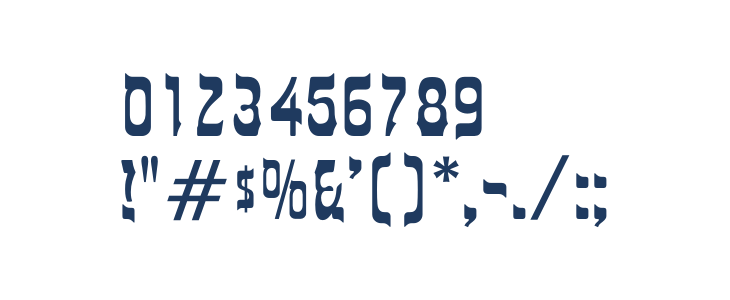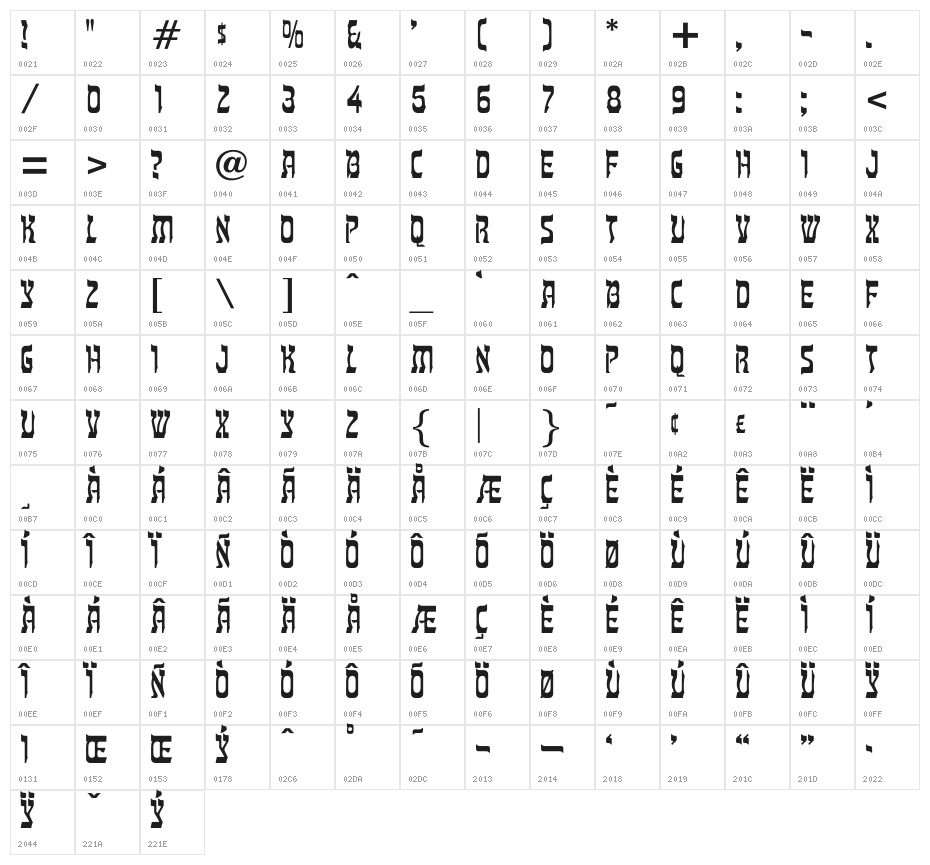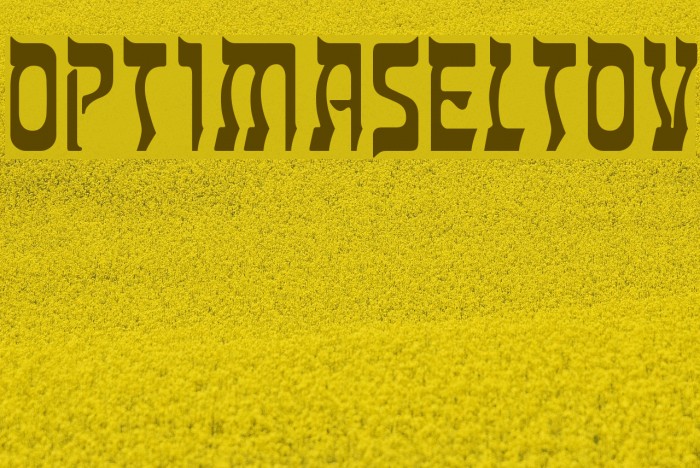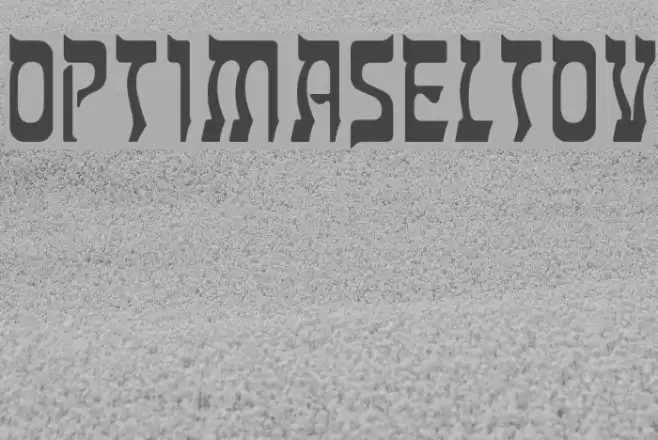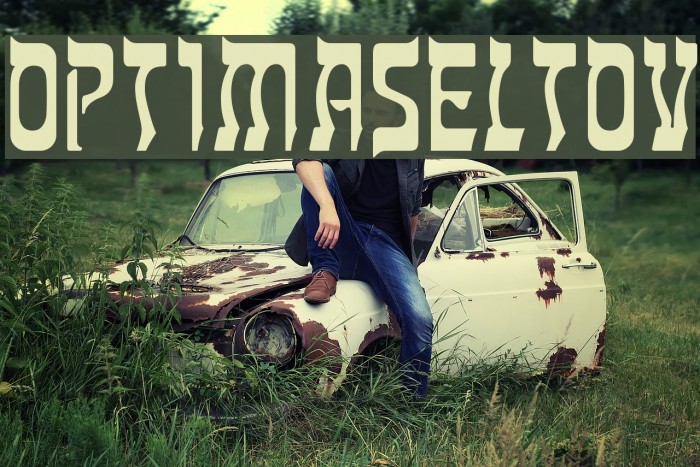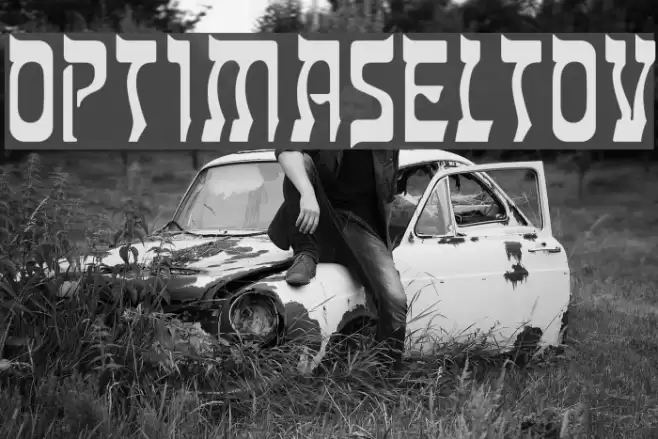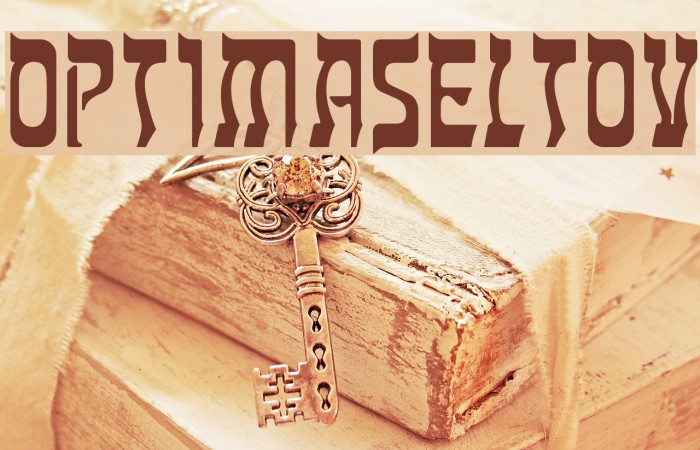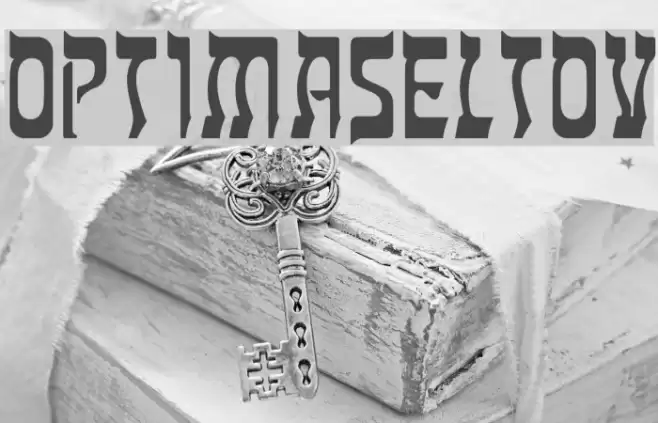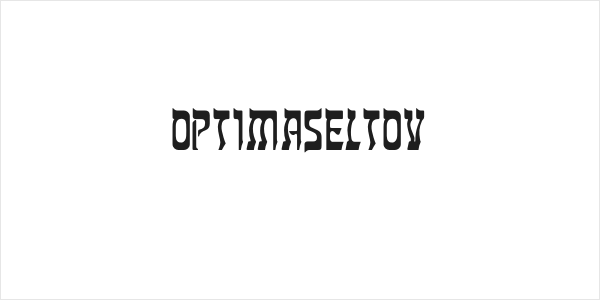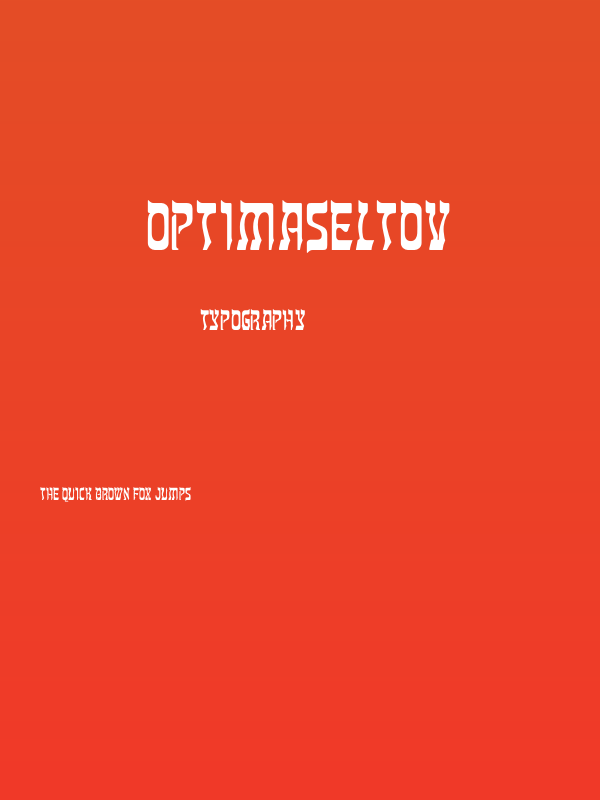
OPTIMaseltov Font
OPTIMaseltov Description
This font features a bold and striking design with a strong presence. The characters are uniquely styled with sharp edges and angular cuts, giving it a distinctive and modern look. The uppercase and lowercase letters maintain a consistent style, while the numbers and special characters complement the overall aesthetic. The font's design is reminiscent of a futuristic or sci-fi theme, making it ideal for projects that require a bold statement. The spacing between characters is tight, enhancing its compact and impactful appearance.
| Proposed Projects | Ideal for sci-fi themed posters, video game titles, branding for tech companies, and any project needing a bold, modern look. |